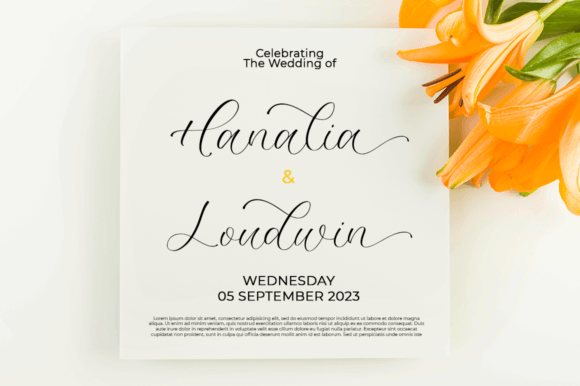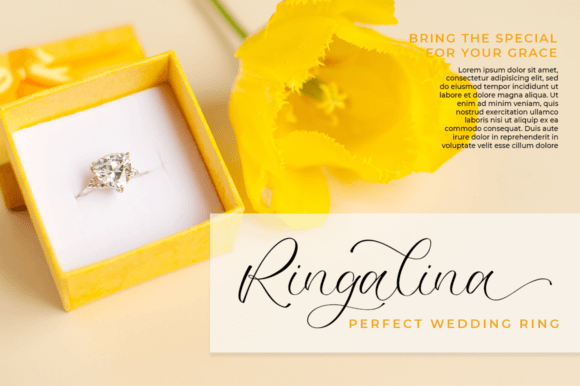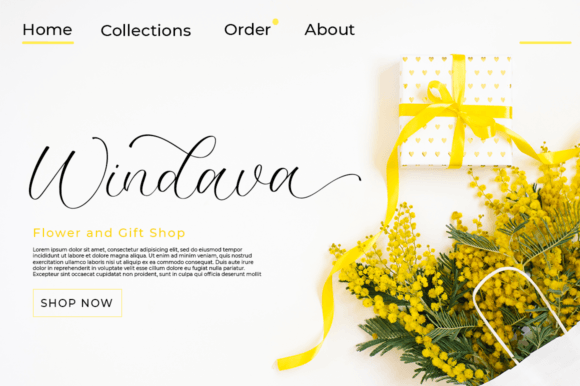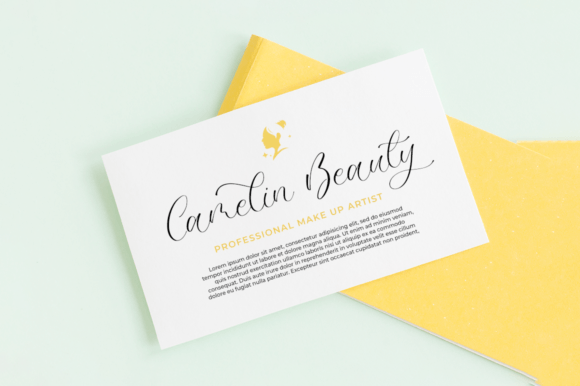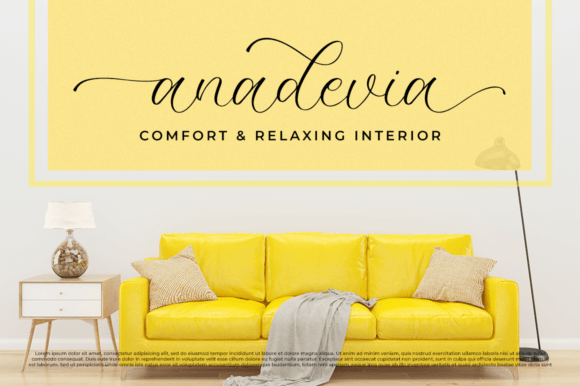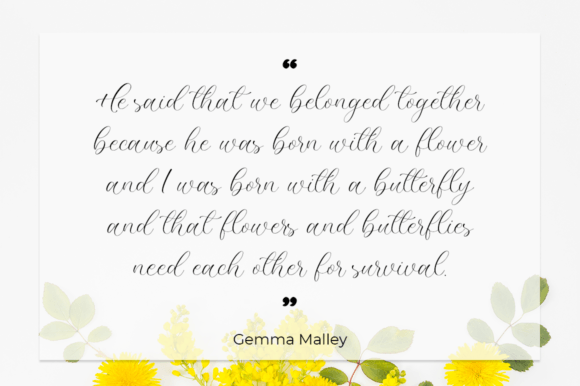
Discover the Timeless Elegance of Calenterine Font
Have you ever been working on a design project, pouring your heart and soul into it, and suddenly, the perfect font pops into your mind? For designers, those “aha” moments are what make the creative process so magical. For me, that moment came when I stumbled upon the enchanting Calenterine Font. This beautiful script font is a masterclass in elegance and sophistication, making it the perfect addition to any design project.
With its classy, modern look, Calenterine Font is a versatile tool that can be used for logos, branding, invitations, stationery, wedding designs, social media posts, and more. Its PUA encoding ensures that you can access all the glyphs and swashes with ease, giving you endless possibilities to express your creativity.
- Unique Characteristics: Features a unique blend of modern and classic elements, with intricate details and subtle flourishes that set it apart from other fonts.
- Kerning and Ligatures: Includes advanced kerning and ligature features, ensuring smooth text rendering and minimizing the need for manual adjustments.
First off, let me say that Calenterine Font is quite a unique and beautiful typeface. ✨ I love the intricate details and curves that make it stand out. The font is elegant and sophisticated, perfect for any project that needs a touch of luxury.
Here are some of the things that work well with Calenterine Font:
- ✨ The font’s high x-height makes it highly legible, even at small sizes.
- ✨ The unique letterforms and flourishes add a touch of personality to any design.
- ✨ The font is highly versatile and can be used for a wide range of projects, from fashion to luxury branding.
- ⚠️ The font may not be suitable for projects that require a more modern or edgy look.
- ⚠️ Some of the letterforms can be quite intricate, which may make it difficult to read at very small sizes.
- ⚠️ The font may require some additional styling or tweaking to get it to work well in certain design contexts.
Overall, I think Calenterine Font is a great choice for any project that needs a touch of elegance and sophistication. With its unique details and high versatility, it’s a great addition to any designer’s toolkit.
Calenterine Font is a versatile font that can be used in a variety of designs, including logos, headings, and body text. Some common use cases include:
– Creating a unique and eye-catching logo
– Adding a touch of elegance to headings and titles
– Creating a cohesive brand identity
Bodoni is a classic serif font, often used in formal and elegant designs. It features a strong and harmonious structure, making it ideal for titles, headings, and magazine covers. Compared to Calenterine Font, Bodoni has a more formal and sophisticated feel, whereas Calenterine Font has a more whimsical and playful tone.
Playfair Display is an elegant and luxurious serif font, often used in high-end designs. It features intricate details and a classic feel, making it perfect for titles, invitations, and luxury brands. Compared to Calenterine Font, Playfair Display is more refined and sophisticated, whereas Calenterine Font is more playful and versatile.